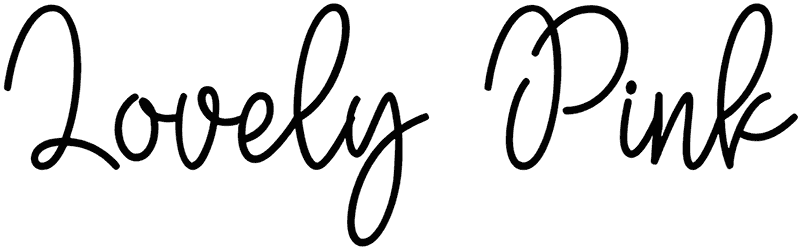
Lovely Pink Font
The handwriting style of Lovely Pink is not good for your typography if you’re not willing to welcome its romantic touch into your lettering as well. The way this curly font goes out of its way to decorate your artwork with playfully cursive characters is nothing short of magical.
So next time you want to boost the emotional impact of your lettering for Valentine’s Day website headers and mugs, make sure to let this love font give you something to admire.